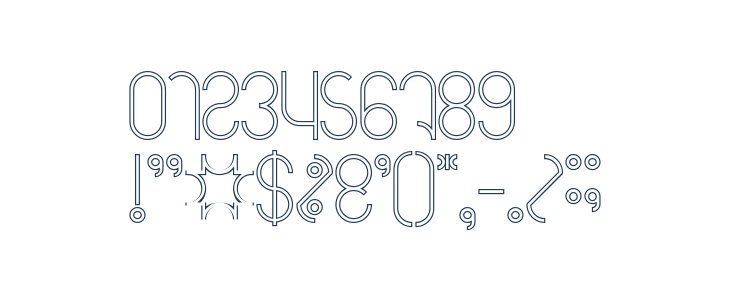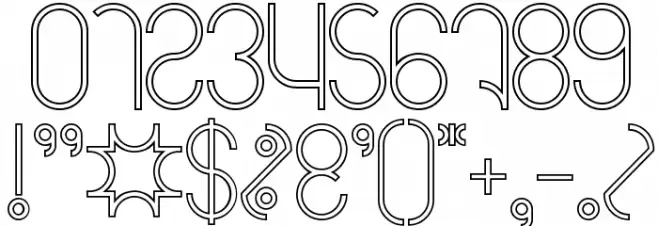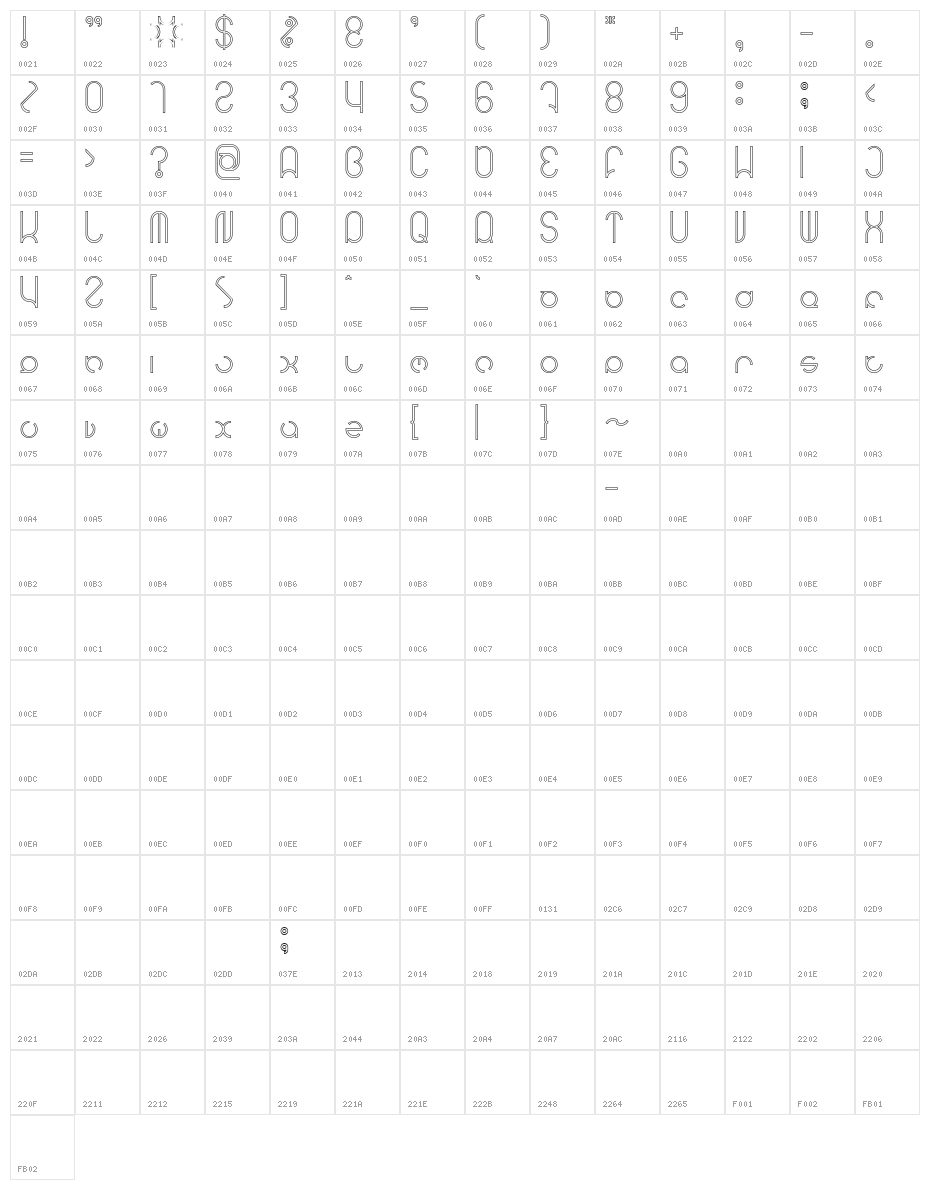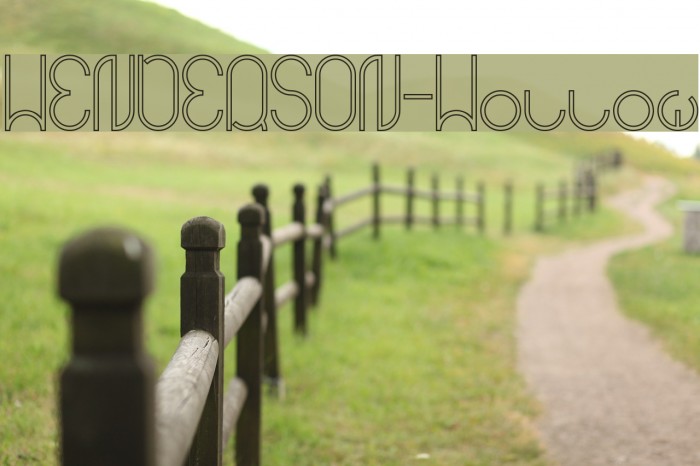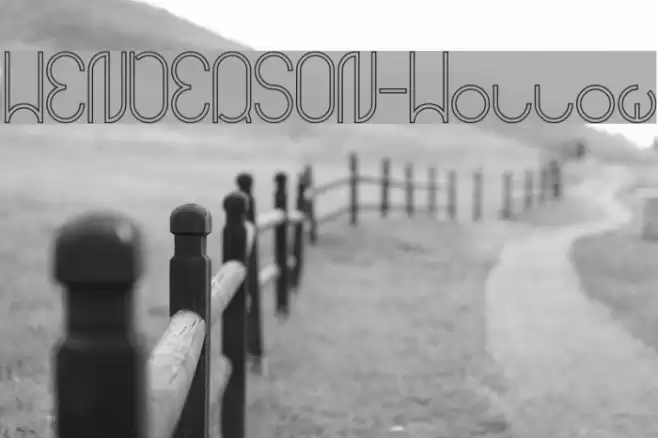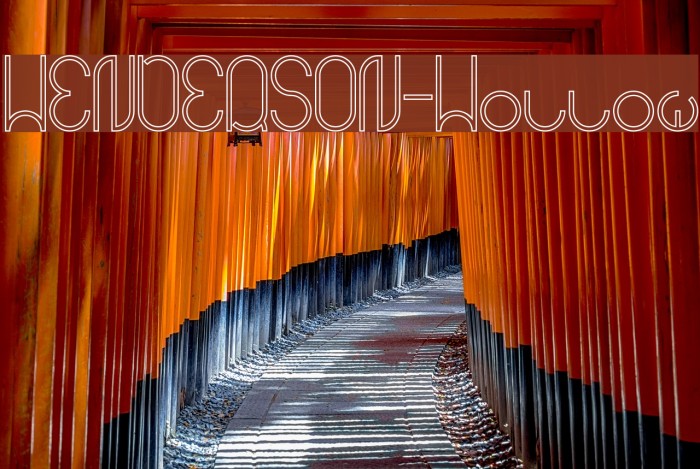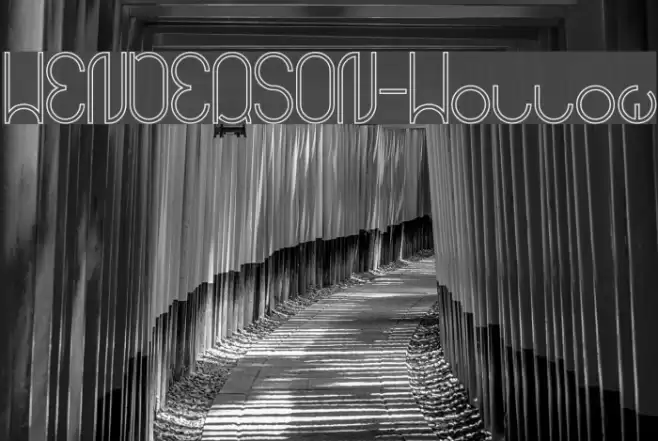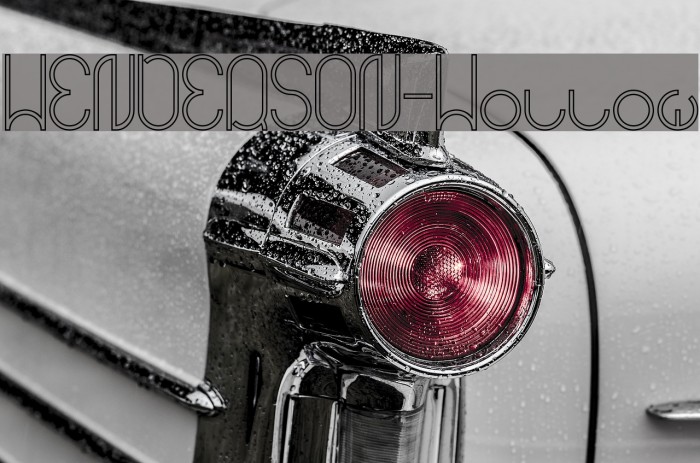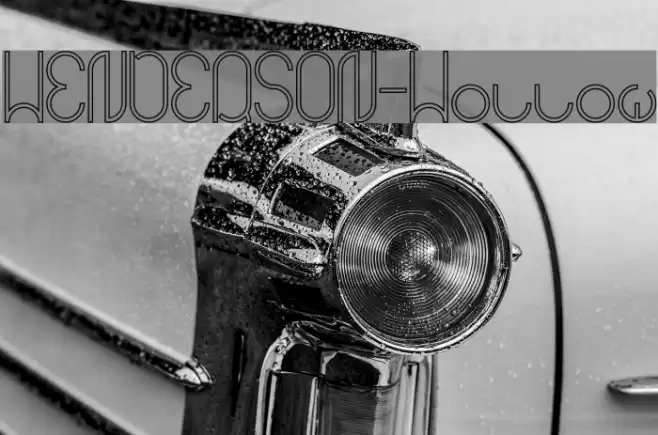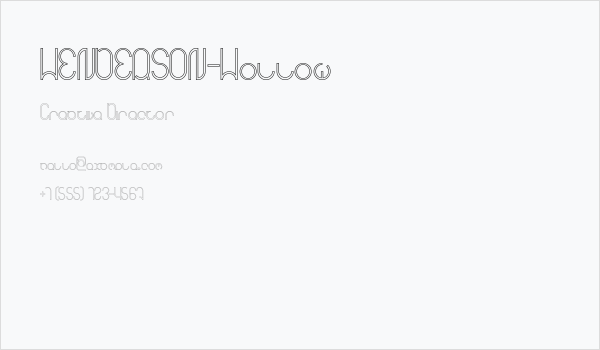
HENDERSON-Hollow Font
HENDERSON-Hollow Description
This font features a unique hollow design with a modern and futuristic aesthetic. The characters are outlined with a consistent stroke width, creating a sense of openness and lightness. The uppercase letters are tall and geometric, while the lowercase letters maintain a similar style with rounded edges and minimalistic forms. Numbers and special characters follow the same hollow, outlined style, ensuring uniformity across all glyphs. The font's design is both eye-catching and versatile, suitable for various creative applications.